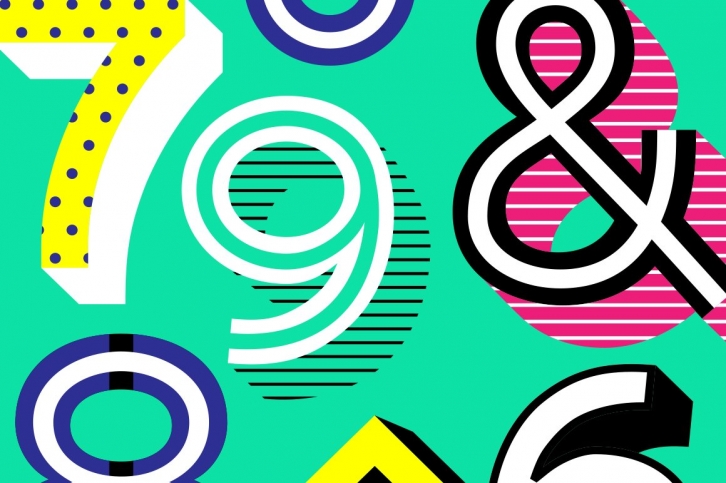
Median Layer — Colorful Type Tools FONT Download
Based on monoline geometric typefaces, Median has 8 styles designed for stacking layers and playing with vibrant colors and shapes. This typeface has strandard base layer on Solid, Stencil, and Folded, it comes in handy with supported from Inline and even the polka dots pattern on every characters, and finally pump up and finalize the structural form with two simple shading options, Shadow Layer and SLine Layer.
Median highly usable on every big type contents, for your illuminate cards & invitation design, fancy coffee shop, themed restaurant, and even the big tosca or violet signage. And for conclusion, this typeface can fill up the design ideas that remain friendly, energetic, and colorful, and adding the bright value for your next projects.